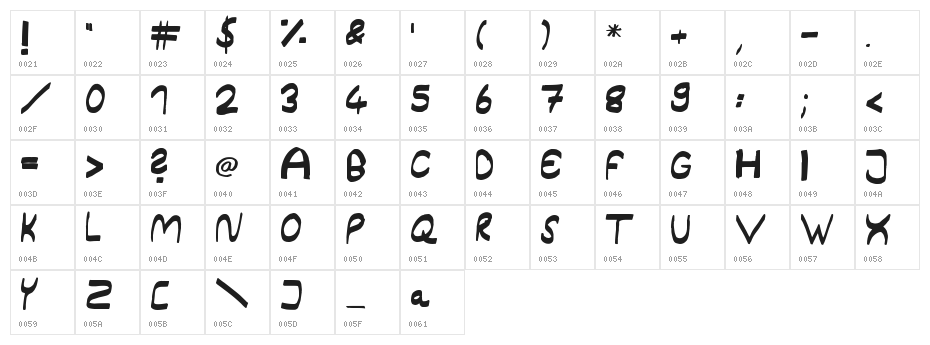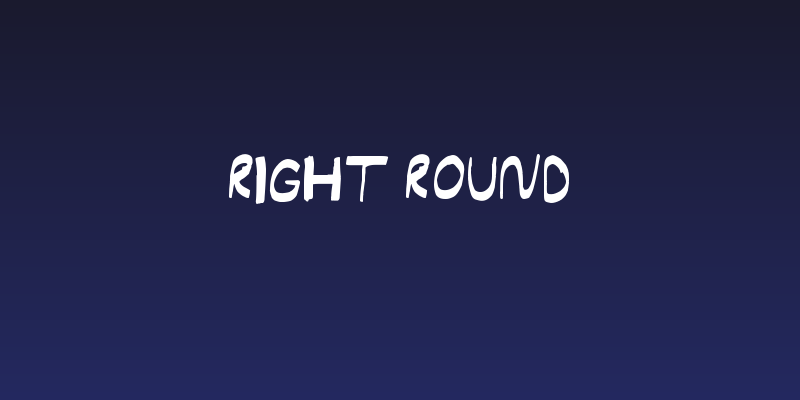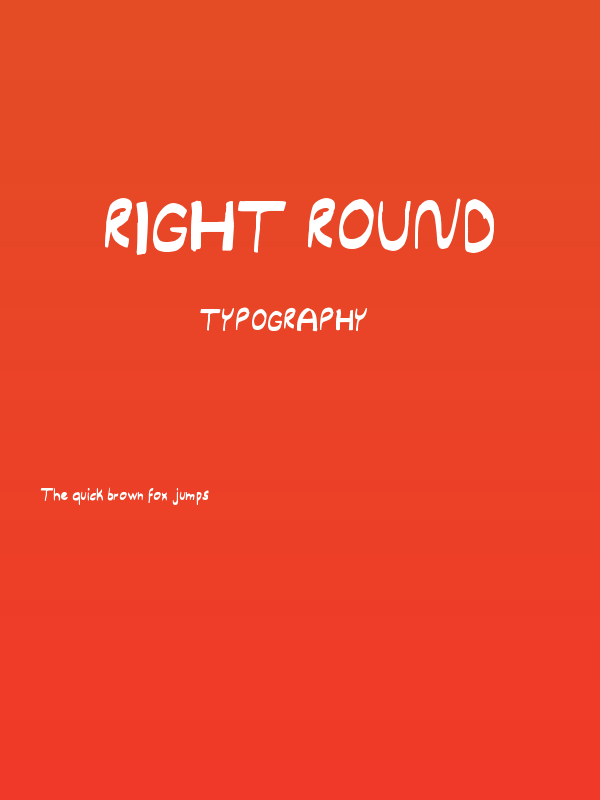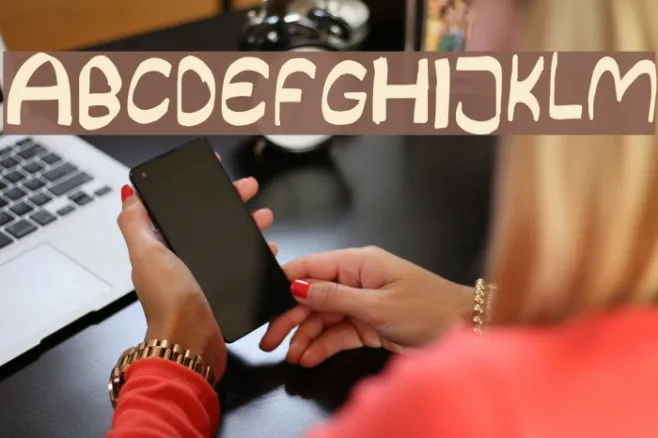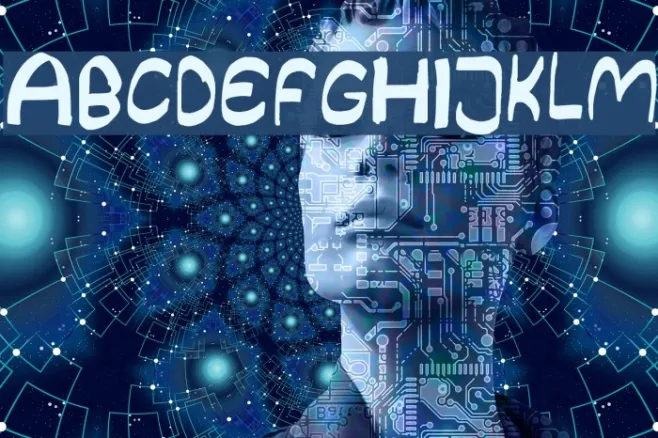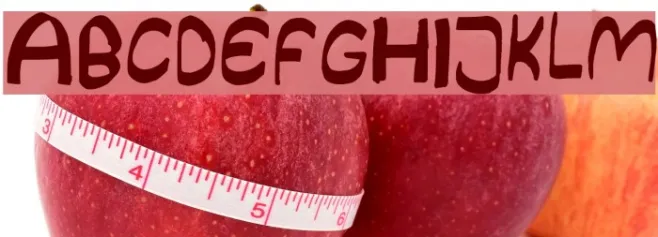
Right Round Font
This font features a playful and bold handwritten style, characterized by its rounded and slightly irregular letterforms. The strokes are thick and consistent, giving it a strong presence on the page. The uppercase letters are slightly taller than the lowercase, maintaining a uniform width throughout. The numbers and special characters follow the same design principles, ensuring a cohesive look. This font exudes a casual and friendly vibe, making it suitable for projects that require a personal touch.
| Overall Style | Playful, Casual |
| Proposed Projects | Ideal for children's books, casual invitations, playful branding, and social media graphics. |